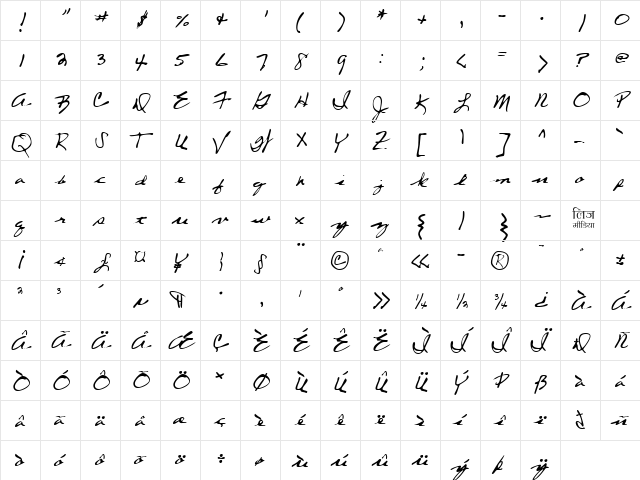
LEHN053 Regular
Design Context for LEHN053 Typeface
LEHN053 is a composed and adaptable typeface that performs quietly and consistently across a wide range of design contexts.